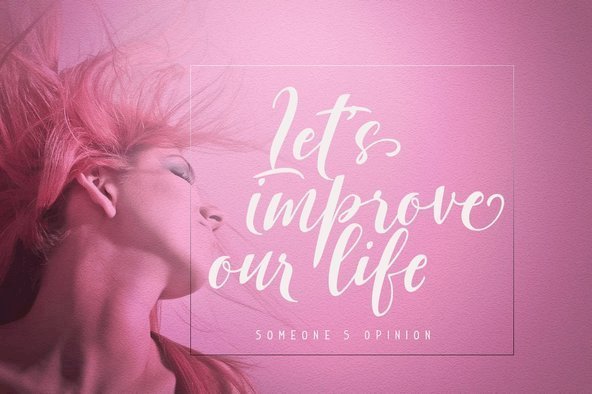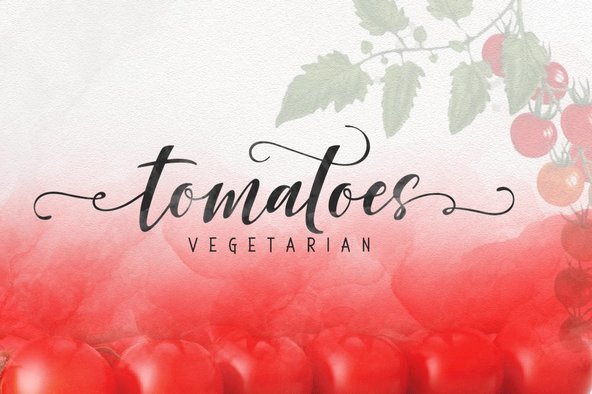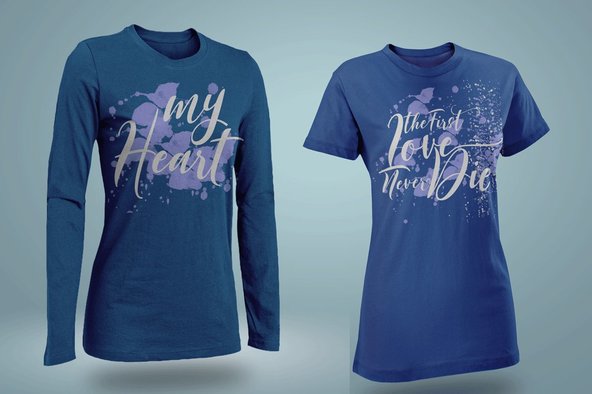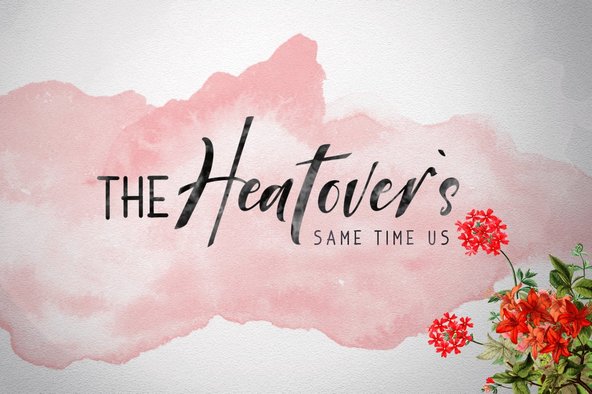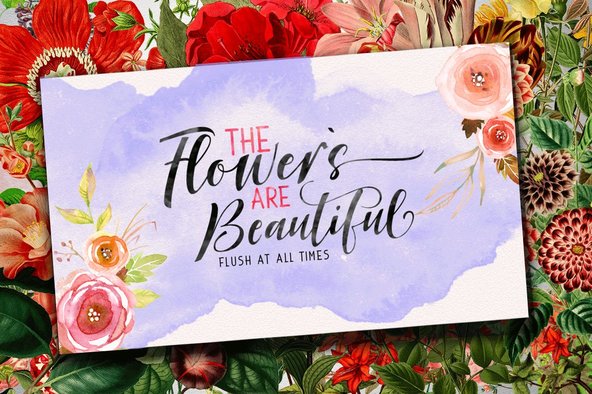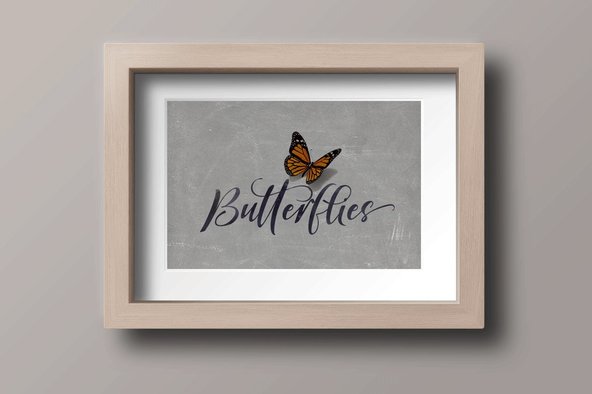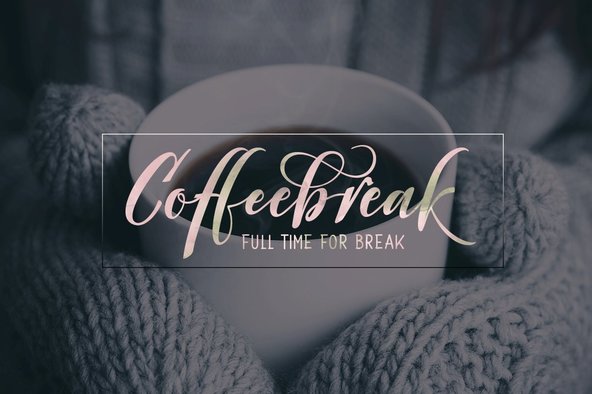
Justtrue: Versatile Font Collection for Creative Projects
Justtrue by GraphicPress is a collection of three smooth brush font sets that each bring a unique style to any project. This font is ideal for personal branding ventures and offers a sophisticated touch to diverse applications.
• Perfect for headings and logos
• Suitable for wedding invitations and t-shirts
• Ideal for letterheads, labels, and news layouts
• Great for posters and badges